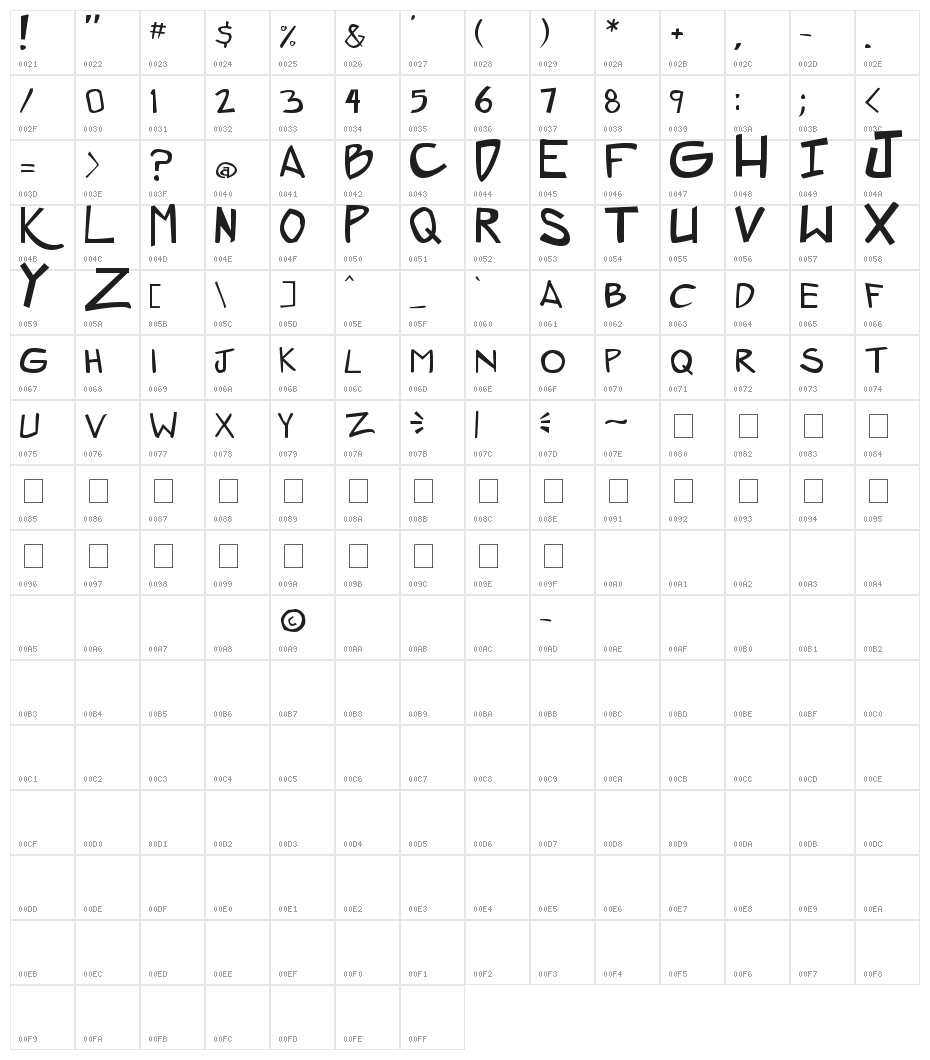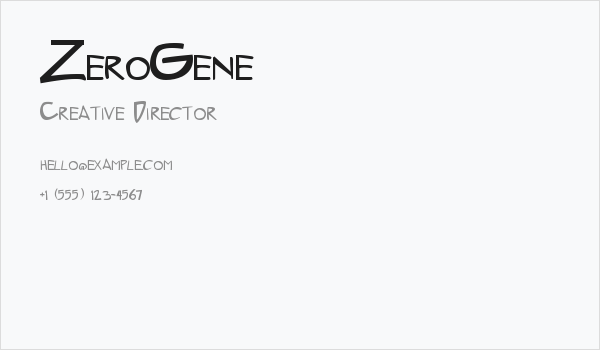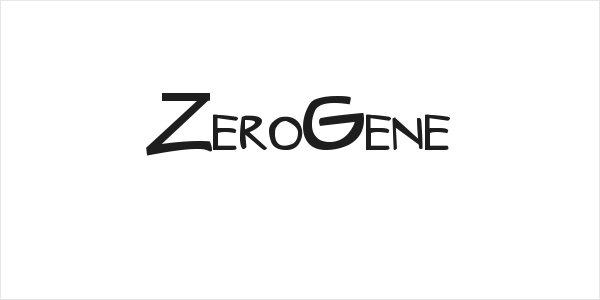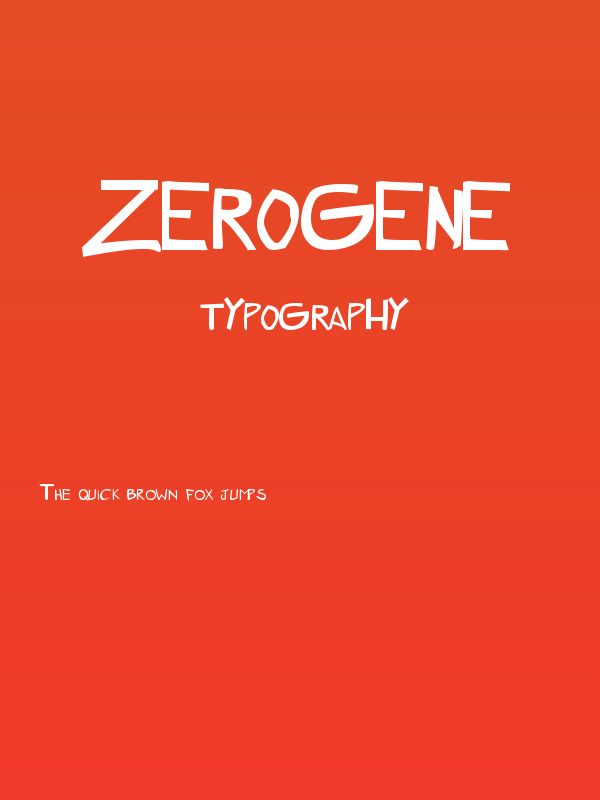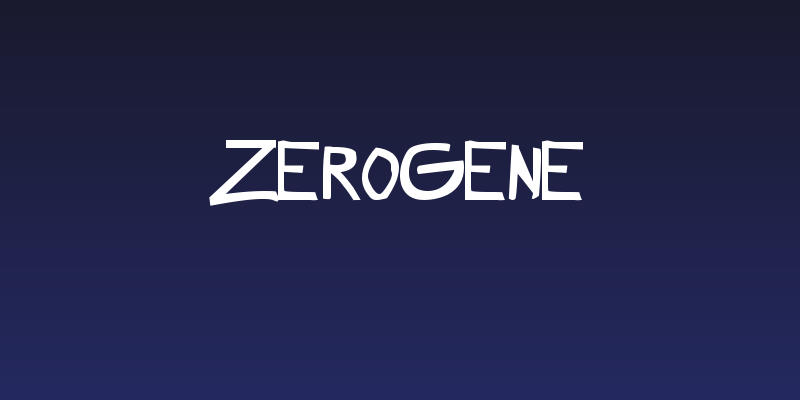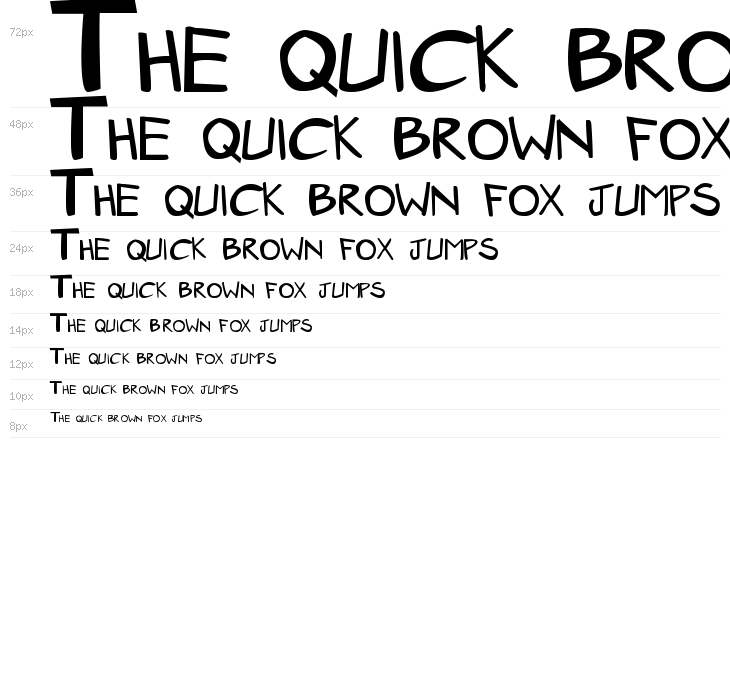
ZeroGene Font
ZeroGene Description
This font features a playful and dynamic style with a hand-drawn appearance. The characters have an irregular, slightly tilted form that adds a sense of movement and energy. The strokes are bold and consistent, with a slight variation in thickness that gives a lively feel. The uppercase and lowercase letters maintain a cohesive look, while the numbers and special characters complement the overall design. This font exudes a casual and informal vibe, making it suitable for creative and fun projects.
| Overall Style | Playful |
| Use Case | Headlines, Logos, Informal Text |
| Proposed Projects | Ideal for children's books, comic strips, playful branding, and informal event invitations. |